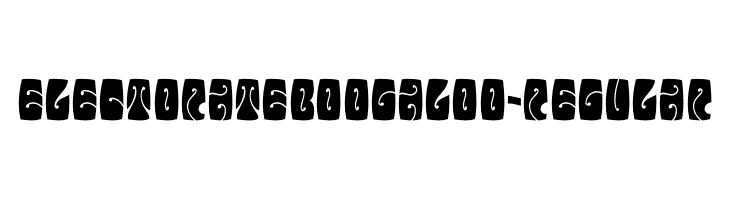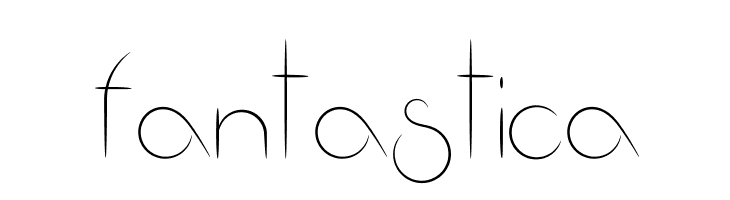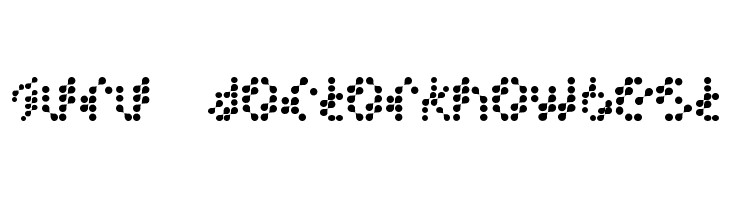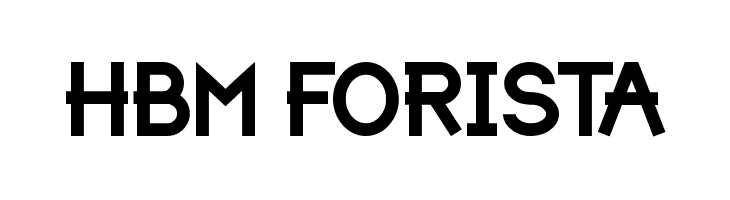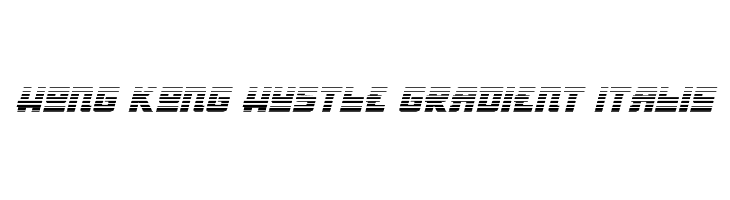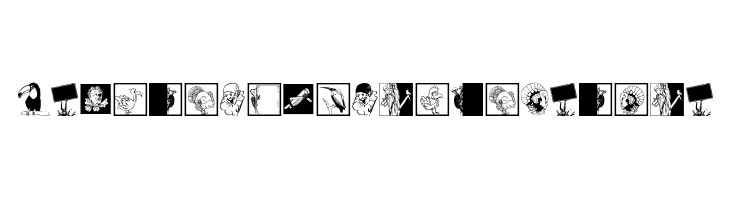
A bold, abstract font with whimsical, swirling patterns and high contrast.
A modern, high-contrast font with thin, elongated letterforms and a unique geometric style.
A modern, geometric font with a condensed and technical design.
A classic, elegant script font with flowing, interconnected letters.
A bold, horror-themed font with a dripping effect for dramatic impact.
A modern, ultra-thin font with elongated, narrow characters.
A bold, brush-style font with dynamic and expressive strokes.
A modern, geometric font with clean lines and a structured appearance.